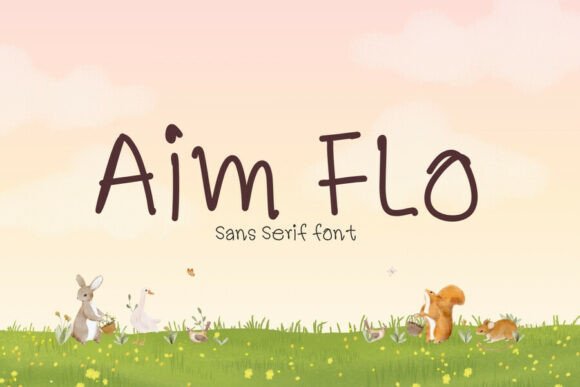
The Ultimate Guide to Aim Flo Font: Adding a Playful Touch to Your Designs
I’ll never forget the time I was working on a project for a children’s brand, and I was struggling to find the perfect font to match their playful and fun vibe. That’s when I stumbled upon Aim Flo Font, a playful, cute, and friendly handwritten font that instantly caught my attention. In this article, I’ll share my experience with Aim Flo Font, its features, and how to make the most of it in your designs.
A Personal Review of Aim Flo Font
As a designer, I’m always on the lookout for fonts that can add a personal touch to my projects. Aim Flo Font did not disappoint. Here’s what I love about it:
- ✨ Playful and friendly vibe: Aim Flo Font has a unique, hand-crafted feel that instantly adds a playful touch to any design.
- ✅ Highly legible: Despite its playful nature, Aim Flo Font is surprisingly legible, even at smaller font sizes.
- 💕 Versatile: This font is perfect for a wide range of design projects, from children’s products to social media graphics.
However, I did notice a few quirks:
- 🤔 Limited use of uppercase letters: While Aim Flo Font has beautiful uppercase letters, they’re not as stylized as the lowercase letters.
- ⚠️ Some letters may require manual kerning: As with any handwritten font, some letters may require manual kerning to achieve optimal spacing.
The Backstory of Aim Flo Font
Aim Flo Font was designed by a team of creatives who wanted to create a font that would bring a smile to people’s faces. Inspired by the playful, carefree nature of childhood, Aim Flo Font was crafted to be a fun, friendly, and approachable font that’s perfect for designs that need a personal touch.
| Font Name | Aim Flo Font |
| Author | TanoiCartoonist |
| What is Aim Flo Font best used for? | Aim Flo Font is perfect for designs that require a playful, friendly, and approachable tone, such as children’s products, social media graphics, and party invitations. |
| Is Aim Flo Font suitable for body text? | While Aim Flo Font is highly legible, it’s best used for headings and titles. For body text, consider using a more traditional font. |